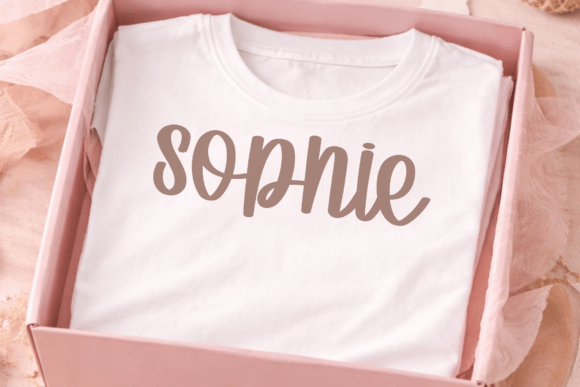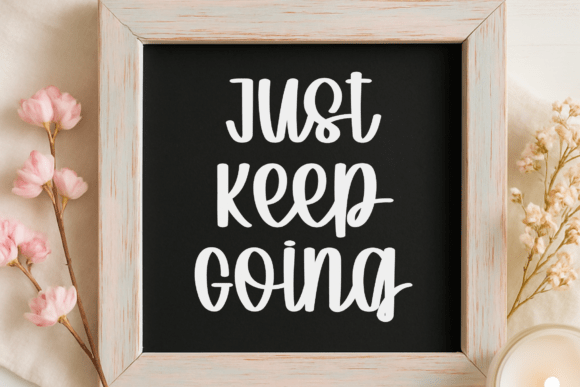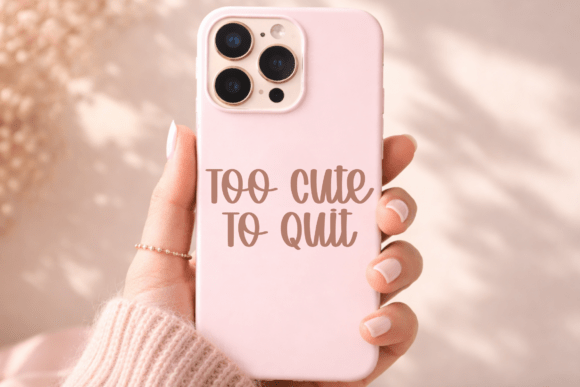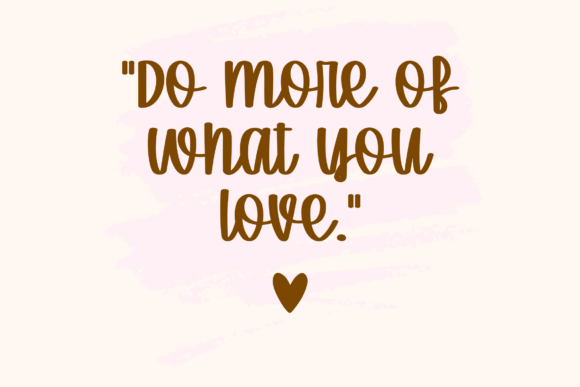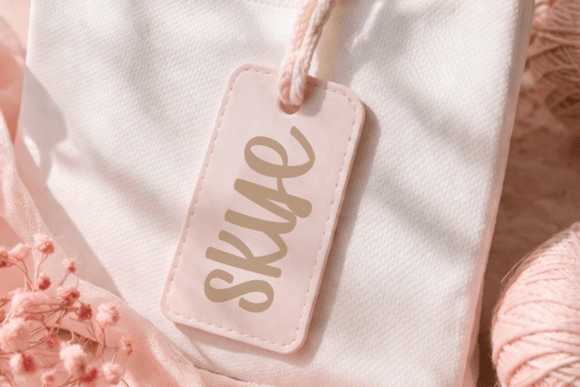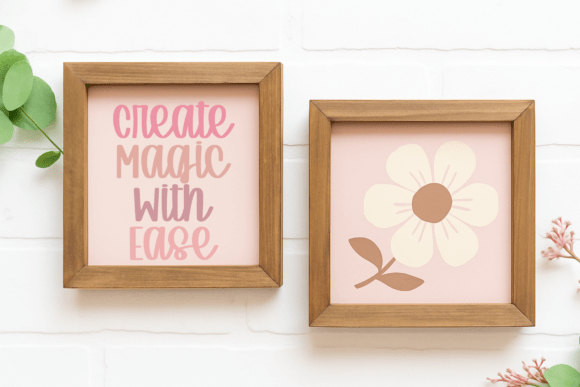
Introduction to Rosy Tale Font
Do you remember that moment when you finally landed the perfect design for your handmade card or digital planner? The one that made you feel like you’re speaking directly to your audience’s hearts? For many of us, it’s a feeling that never gets old, and it’s exactly what drives us to continue exploring the world of design. Whether you’re a seasoned pro or just starting out, finding the right tools can make all the difference in bringing your creative vision to life.
That’s where Rosy Tale Font comes in – a beautifully crafted handwritten script font designed to add a touch of elegance and sophistication to your projects. With its smooth curves and refined letterforms, this font is perfect for anyone looking to create high-quality designs that are both visually appealing and easy to read.
As a valuable addition to your design resource library, Rosy Tale Font offers a free download that’s perfect for a wide range of applications, from social media graphics to Cricut cutting projects. Its transparent background and reliable results make it an ideal choice for everyday creative use, and we can’t wait to see what amazing things you create with it!
Key Features of Rosy Tale Font
- High-quality design: The Rosy Tale Font is a beautifully crafted, elegant script font suitable for creative projects.
- Unique characteristics: The Rosy Tale Font boasts a distinctive, whimsical feel, making it perfect for adding a touch of elegance to creative projects.
- Perfect for design resource: This font is an excellent addition to any designer’s toolkit, ideal for use in logos, branding, and other design projects.
Honest Review: Rosy Tale Font
I recently had the chance to work with the Rosy Tale Font, and I must say it’s been a delightful experience. This beautiful font is perfect for adding a touch of whimsy and romance to any creative project.
- ✨ High-quality design that’s perfect for romantic or vintage-themed projects
While the Rosy Tale Font is a great addition to any design resource collection, there are a few limitations to be aware of:
- ⚠️ May not be suitable for modern or minimalist designs, as it has a more ornate and vintage feel
Overall, I’m thoroughly impressed with the Rosy Tale Font. Its unique design and high-quality construction make it a valuable asset for any designer working on a creative project. While it may not be perfect for every project, it’s definitely worth adding to your design resource library.
Rosy Tale Font
Tips for Getting the Most Out of Rosy Tale Font
Combine the Rosy Tale Font with a transparent background to create a beautiful, elegant design. Experiment with different font sizes and styles to add depth and visual interest to your project.
The Rosy Tale Font is ideal for wedding invitations, baby shower invitations, and other creative projects that require a touch of elegance and sophistication. It’s also great for branding and logo design projects.